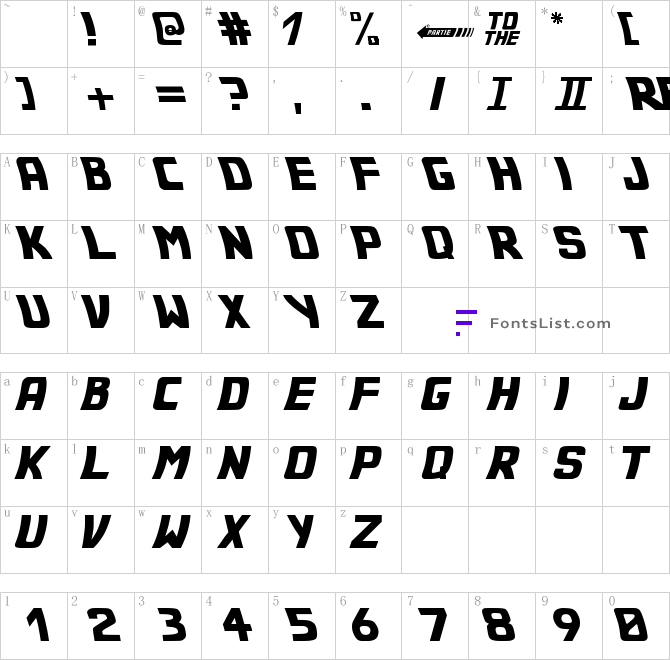
- Font Name:Back to the future 2002
Back-to-the-future-2002.ttf is a very beautiful artistic font, Back-to-the-future-2002.ttf is widely used in the design and printing of various books and pictures,Back-to-the-future-2002.ttf has a strong visual impact,Back-to-the-future-2002.ttf is a commonly used font in newspapers, magazines and books, and is used in posters, e-commerce Poster design, store design, logo design, font design and other fields.Back-to-the-future-2002.